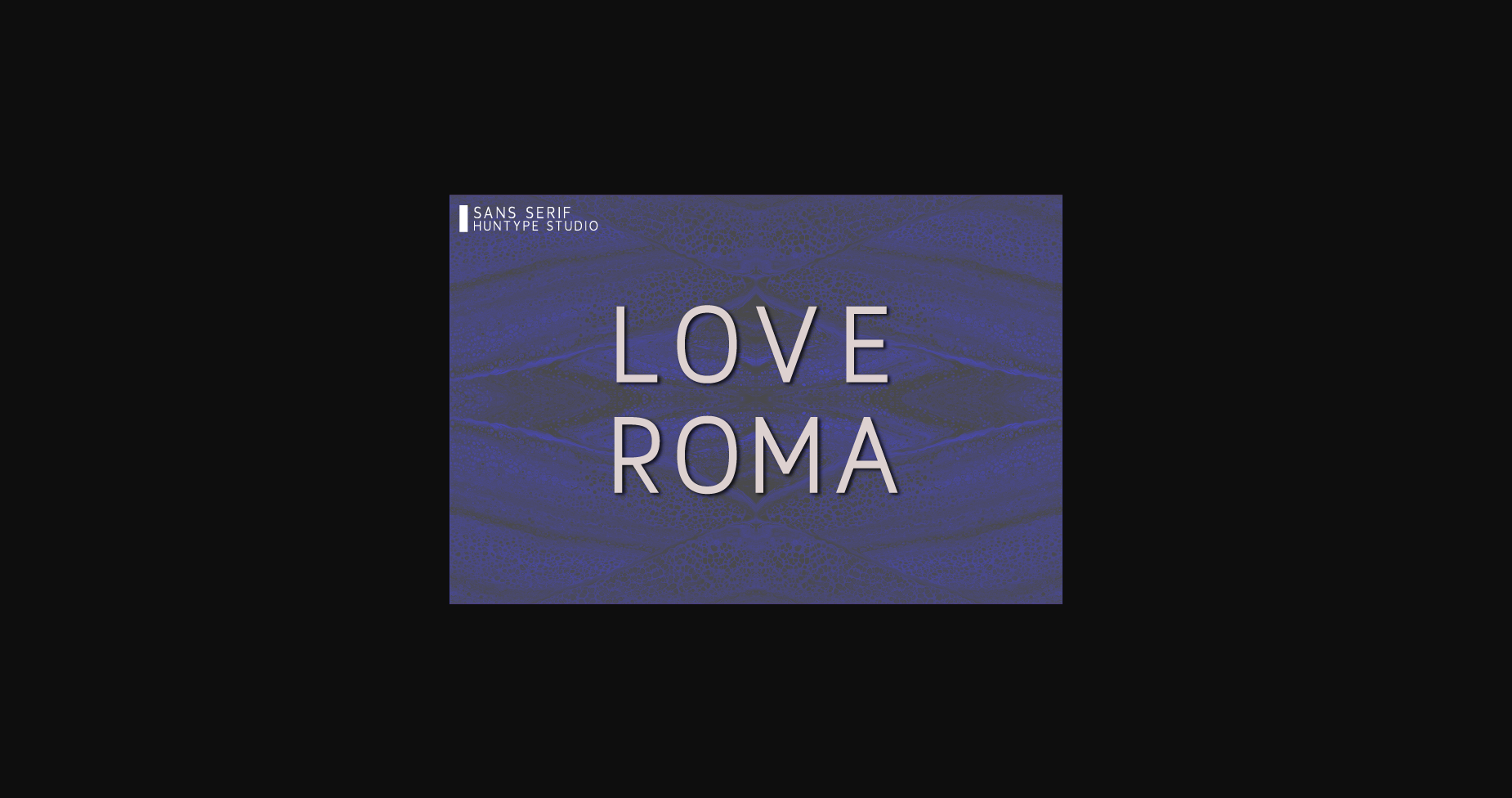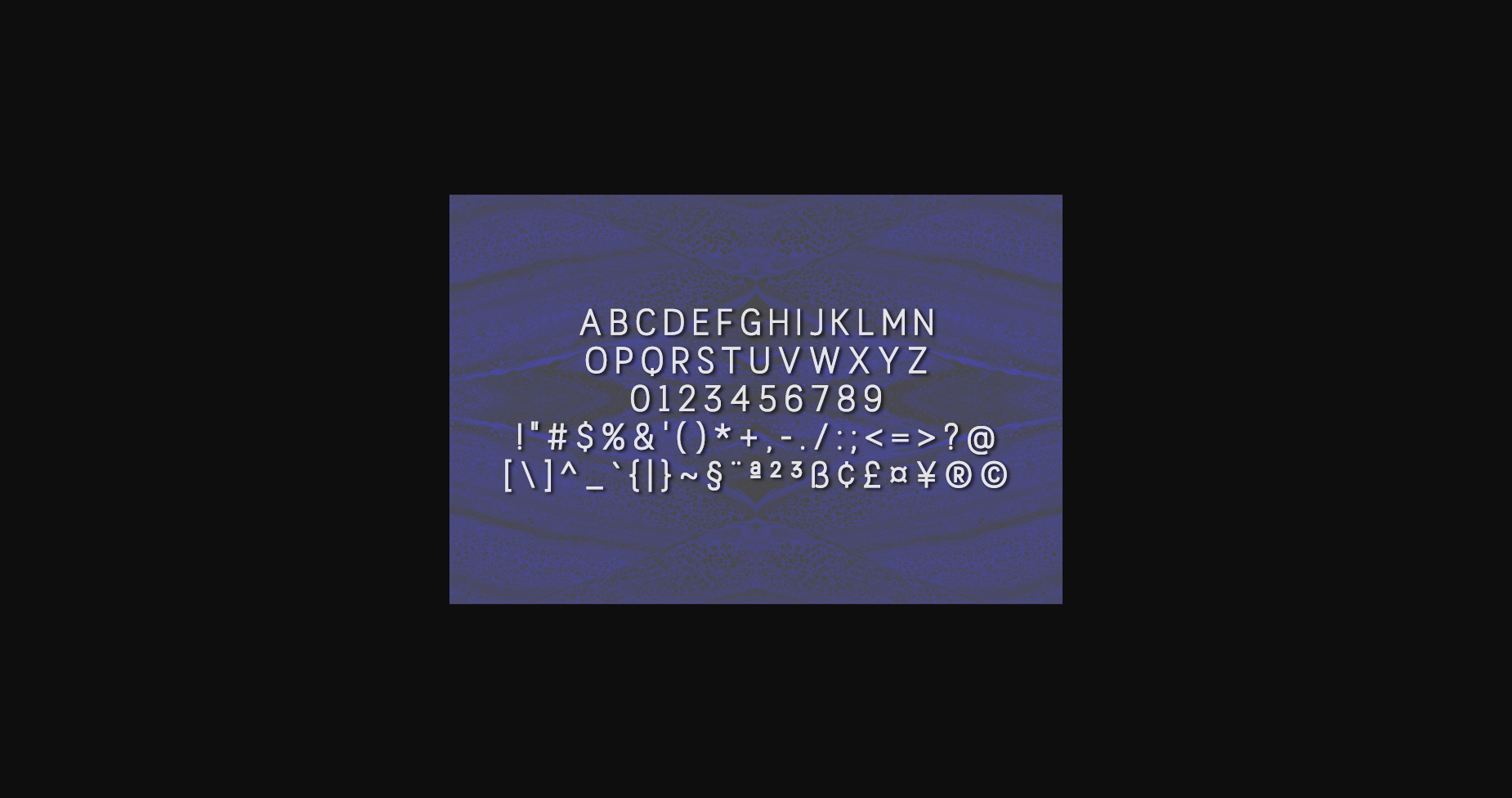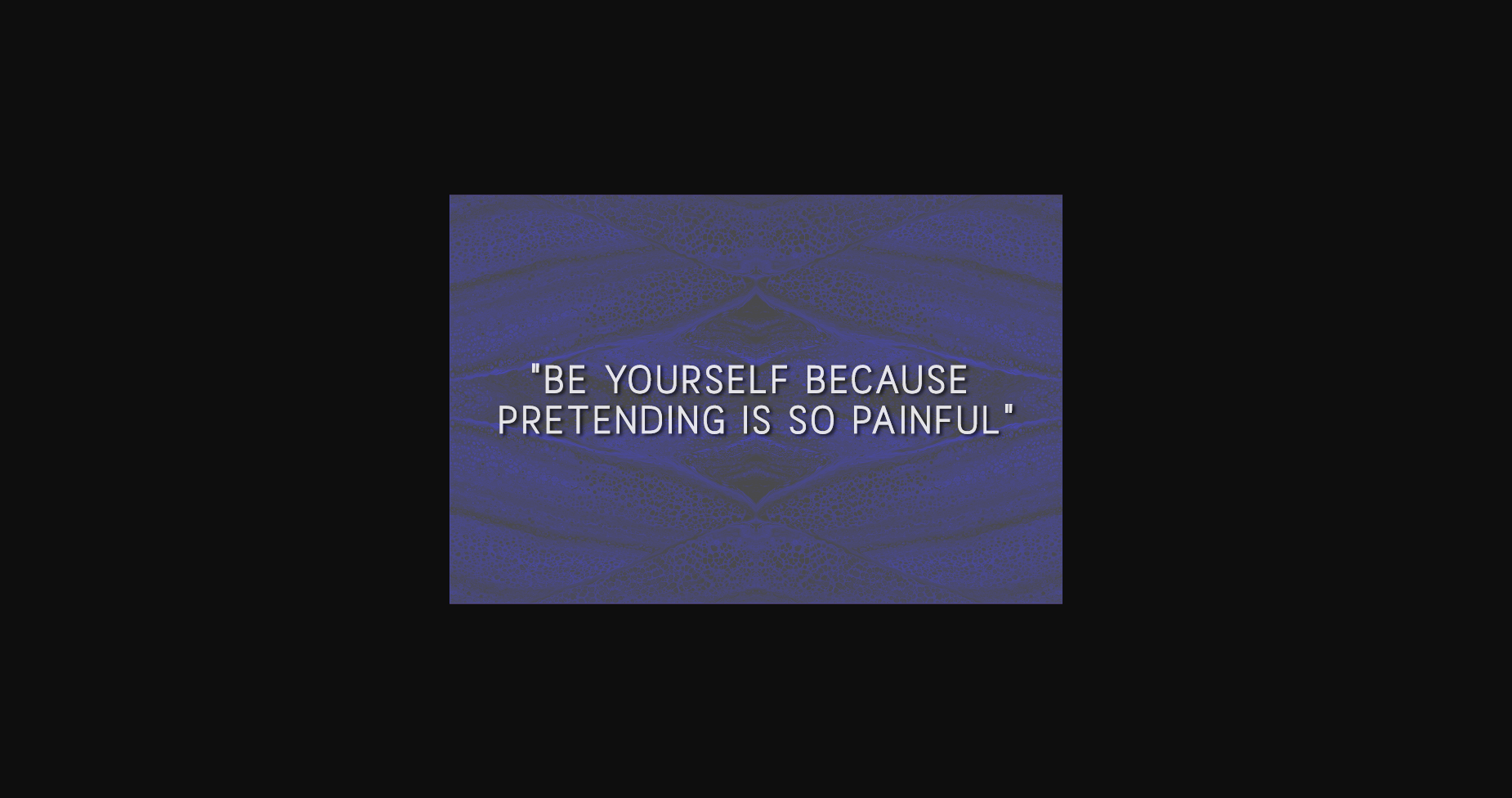
About Love Roma Font
Love Roma is a thin lettered and simple sans serif font. With smooth and clean lines, this font works beautifully for logos, branding, and web headings.